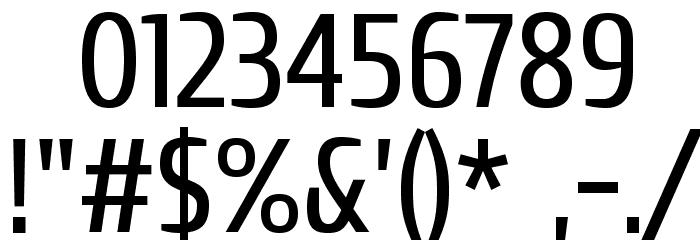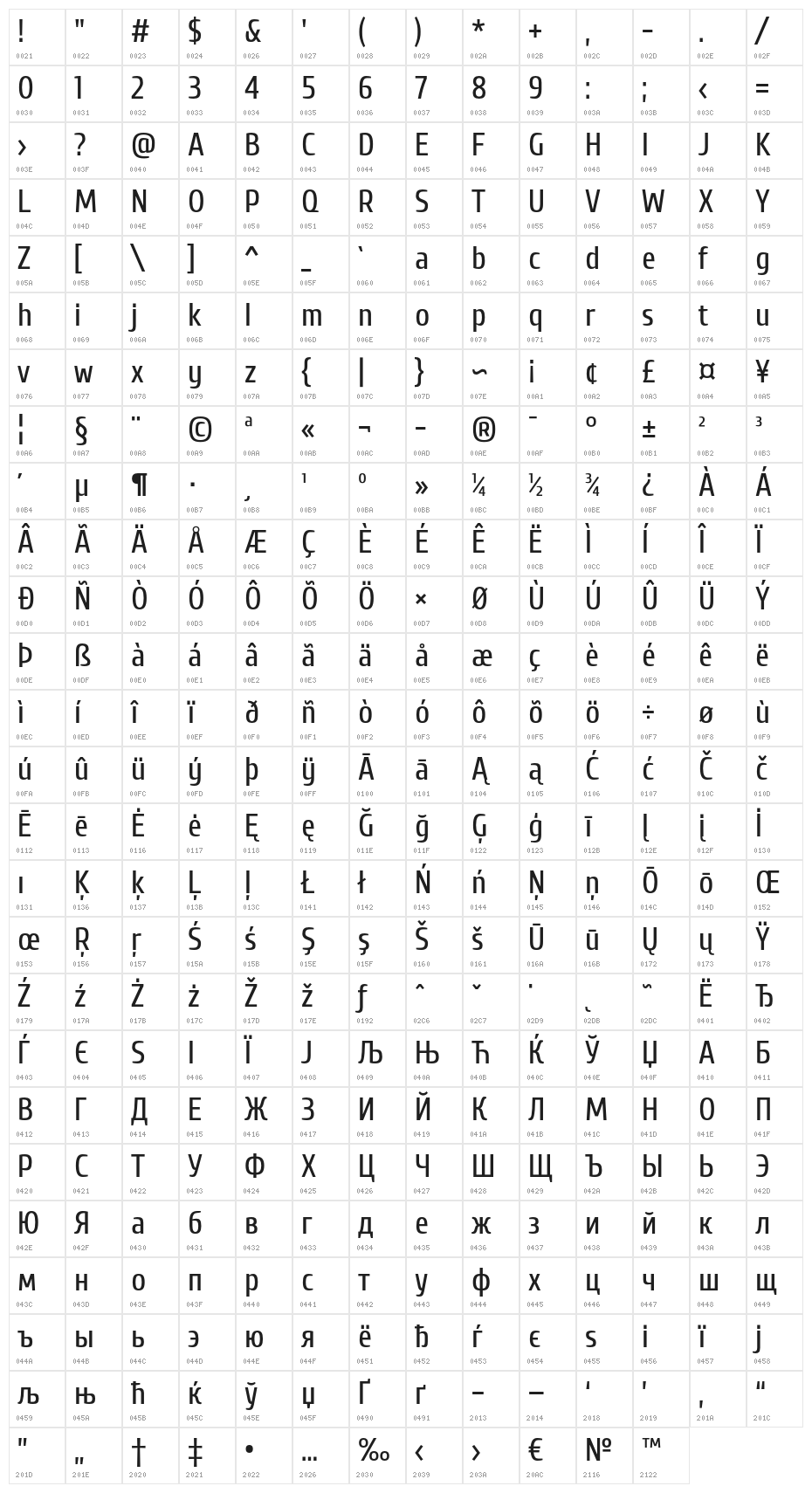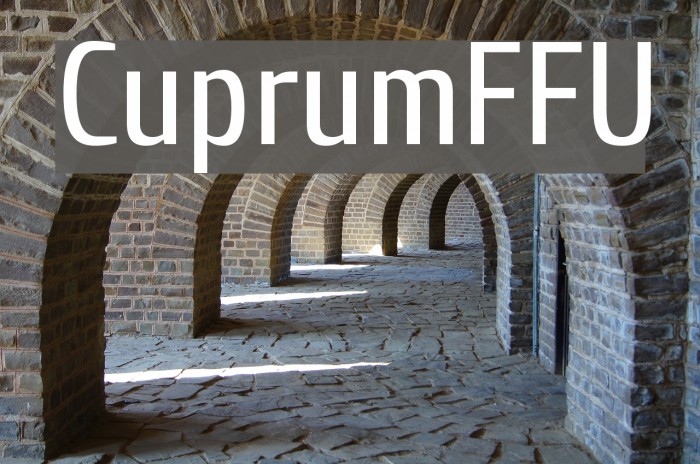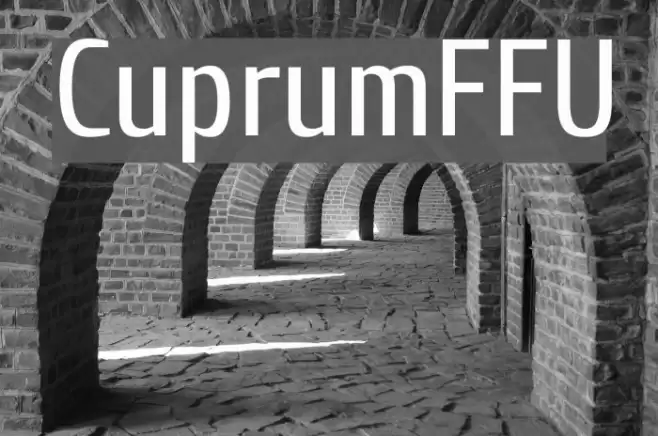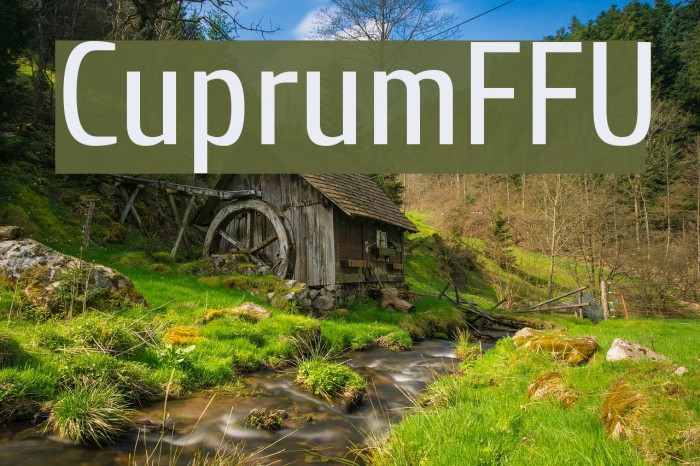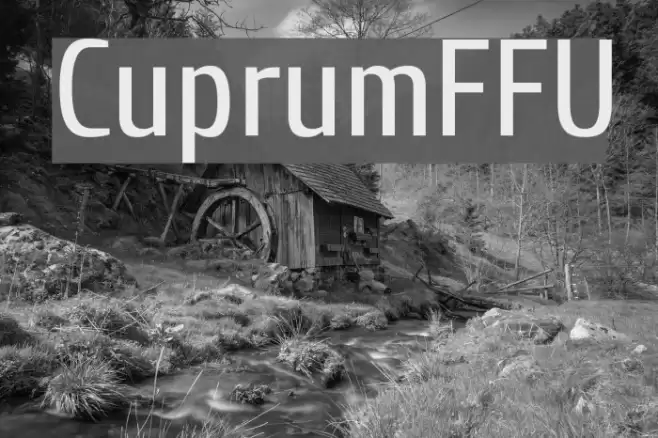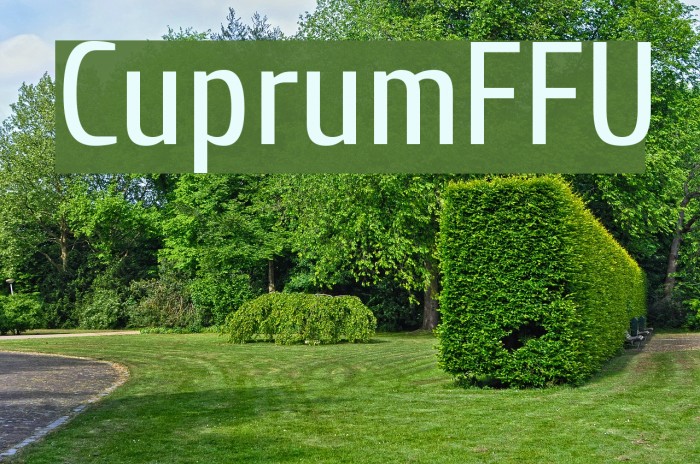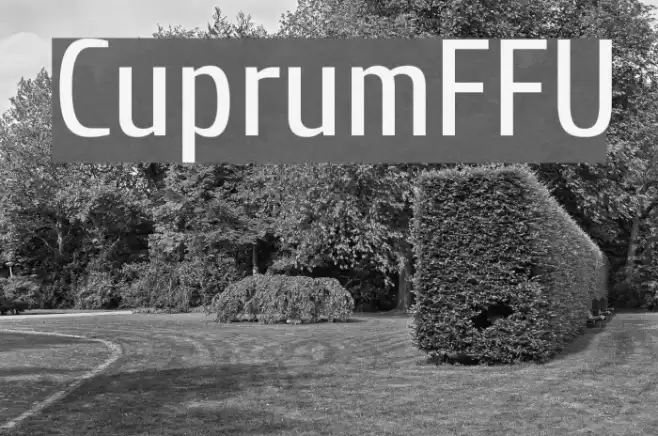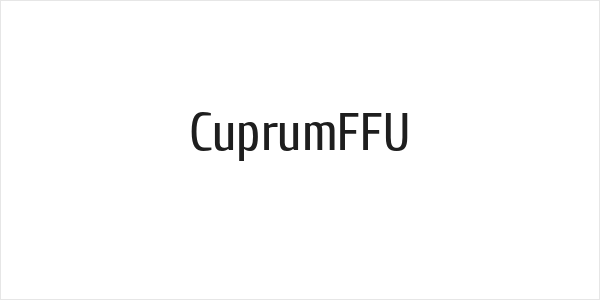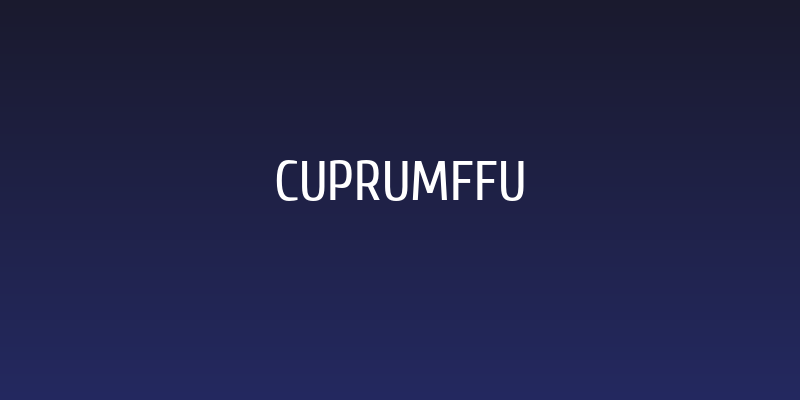
CuprumFFU Font
CuprumFFU Description
This font features a clean and modern sans-serif design with a geometric structure. The characters are well-balanced with a uniform stroke width, providing a sleek and professional appearance. The uppercase letters are bold and commanding, while the lowercase letters maintain a consistent and harmonious flow. The numerals are clear and easily distinguishable, making them suitable for various applications. The special characters are crafted with precision, ensuring readability and aesthetic appeal. Overall, this font is versatile and can be used in both digital and print media.
Use CaseHeadlines, Body text, Logos
Proposed ProjectsIdeal for corporate branding, web design, user interfaces, and editorial layouts.